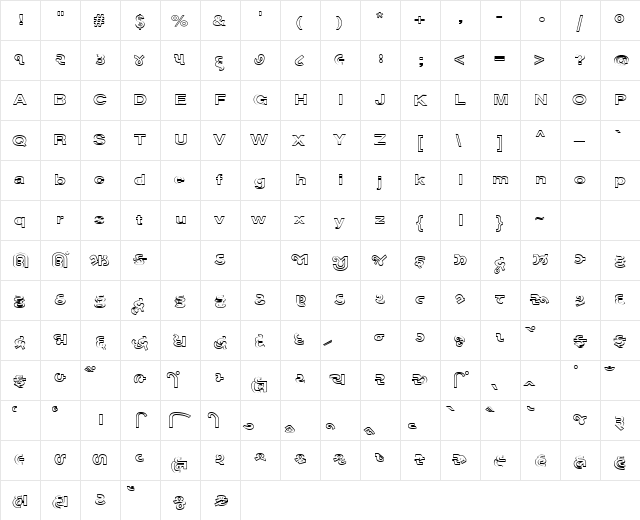
AkrutiOfficeRupal Bold
Design Context for AkrutiOfficeRupal Typeface
AkrutiOfficeRupal takes a measured approach to typography — its balanced proportions and neutral character make it a reliable workhorse for both digital and print work. Its bold stroke weight gives it real presence on the page.